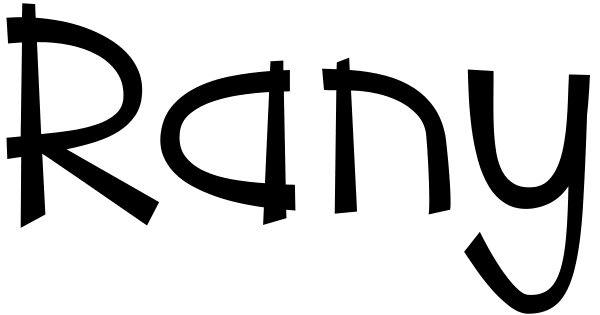
Rany
Rany is a fun, legible handwriting font with a childlike twist. Great for posters, packaging, logos, or anywhere a fun font is called for.
Rany Font